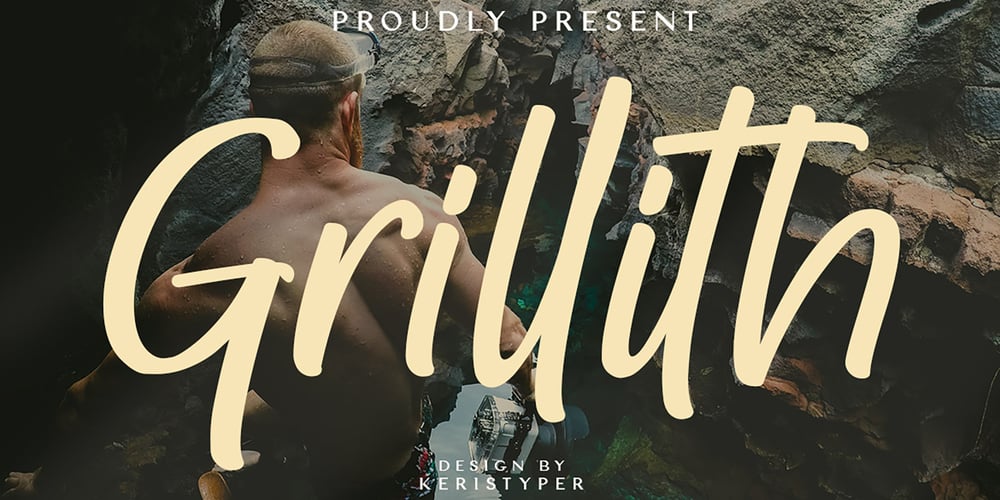
Grillith Font Family was designed by Tezar Tantular and published by Keristyper Studio. Grillith contains 1 styles and family package options. Presenting Grillith fonts. This font is created with a unique combination of each character. looks real and can be used for all your project needs. This font is good for logo design, Social media, Movie Titles, Books Titles, short text even long text letters, and good for your secondary text font with sans or serif.Featured: Standard Uppercase & Lowercase Numeral & Punctuation Multilingual : ä ö ü Ä Ö Ü ß ¿ ¡ Alternate & Ligature PUA encoded We recommend programs that support the OpenType feature and the Glyphs panel such as Adobe applications or Corel Draw. so you can use all the variations of the glyphs. Hope you enjoy our fonts!